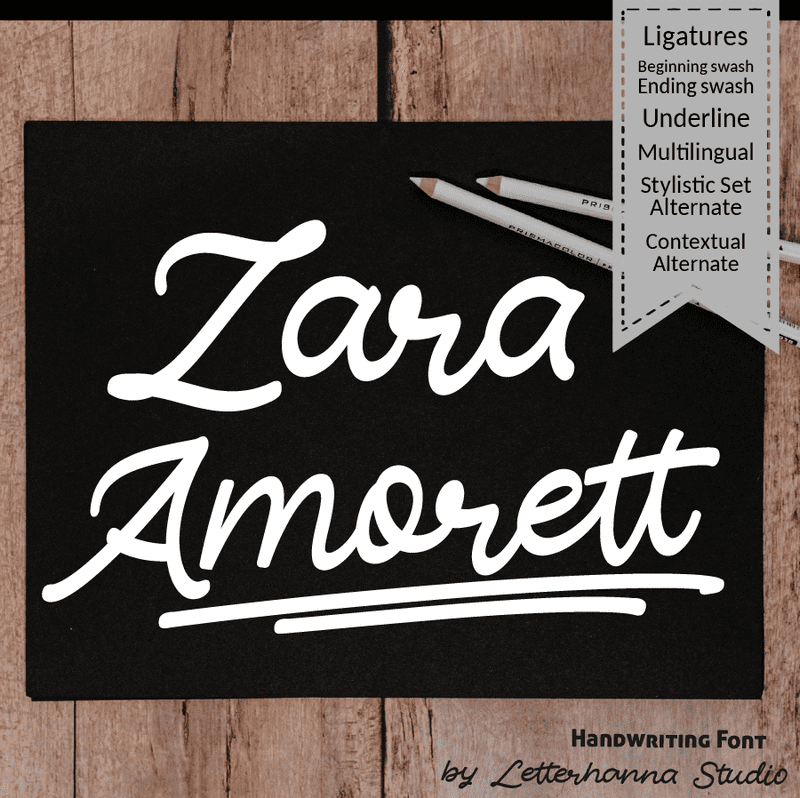
Zara Amorett is a modern urban handwritten script. Heavy and rounded shape. Zara Amorett�s attractive letterforms can be enhanced with extravagant swash, alternates, and endings. Complement your design with 24 underline swash. Try mixing your design with this font. Don't hesitate to pair it with serif or serif in your work idea. Find interesting layouts to complement your project. Zara Amorett Handwritten Script Font contains a full set of lower & uppercase letters, a large range of punctuation, numerals, and multilingual support. Zara Amorett was created to look as close to a natural handwritten script as possible by including natural-looking ligatures, and 2 full set of lowercase alternates. Zara Amorett also comes with more OpenType features like Stylistic Alternates, beginning-of-word swashes and end-of-word swashes. FEATURES - TTF/OTF/WOFF - Uppercase and Lowercase letters - Numbering and Punctuations - Multilingual Support - Ligatures - Beginning and ending swashes - Underline swashes - Stylistic alternate - Contextual alternate Download free version, buy or Test this font at https://letterhanna.com/zara-amorett-font/ Standard / desktop license, for more license check this page https://letterhanna.com/license/ Hi there , I hope you enjoy the font, I like designing fonts and I want my fonts to be widely spread and used by other designers. But please be aware that this font is free for personal use only. No promotional or commercial use allowed! You require a license for promotional or commercial use. More... |